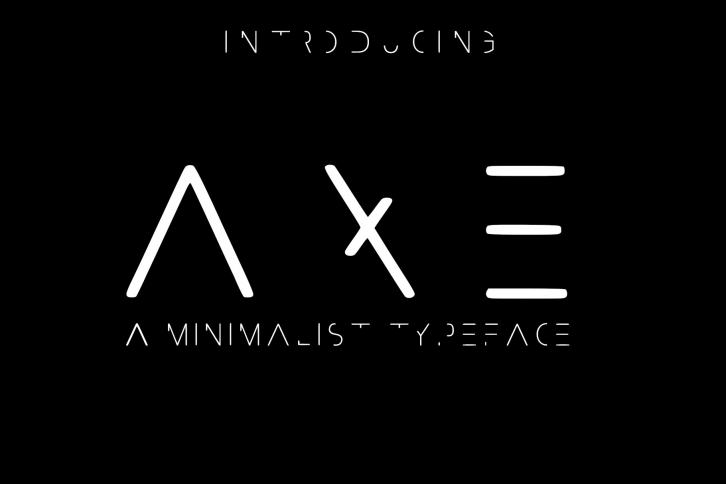
A minimalist font. Axe is a hand-drawn font inspired by minimal designs. It is an uppercase font with both bold and light options. Uppercase is bold and lowercase is light. Its style makes it perfect for use in your design projects.